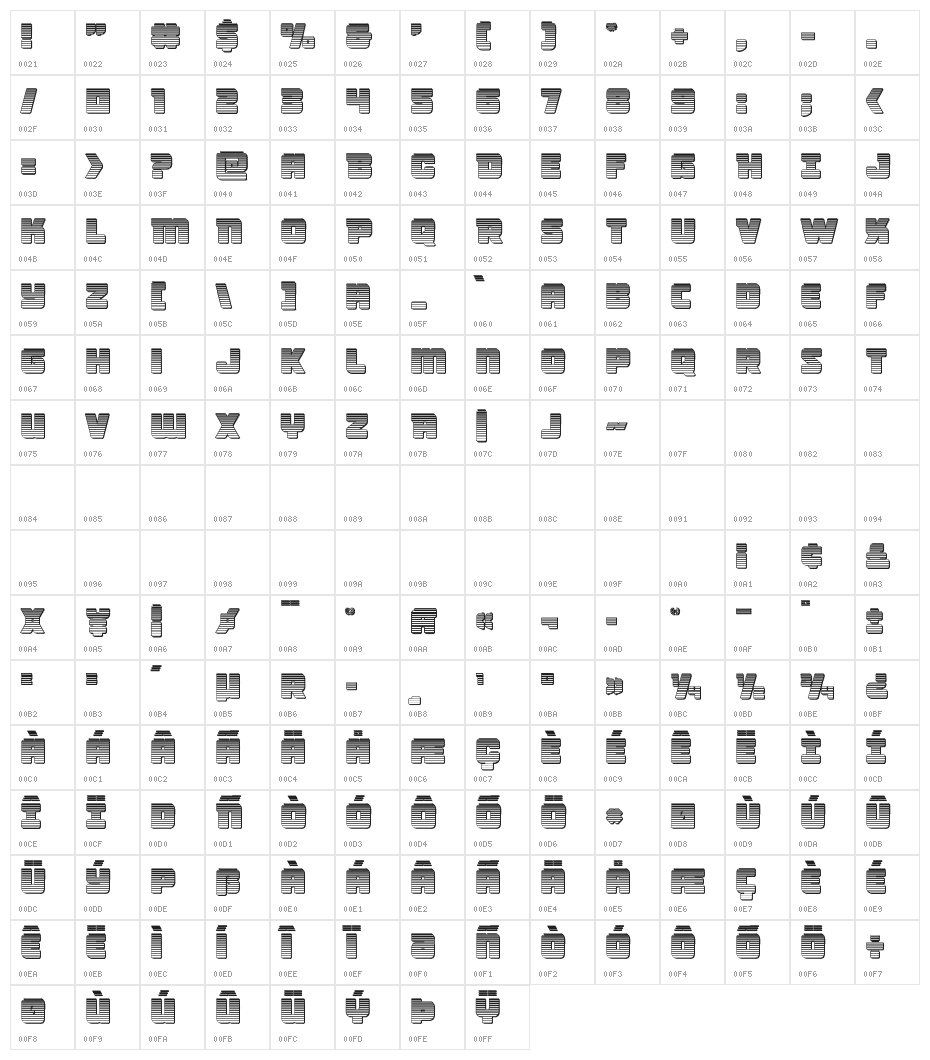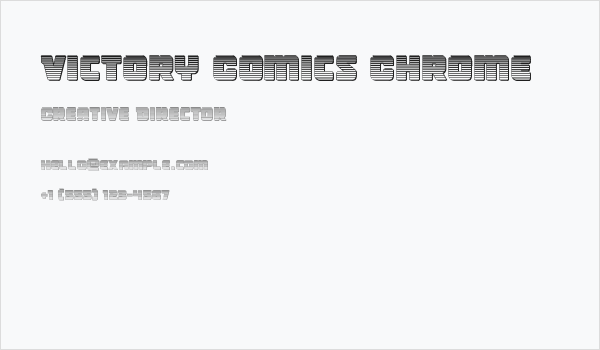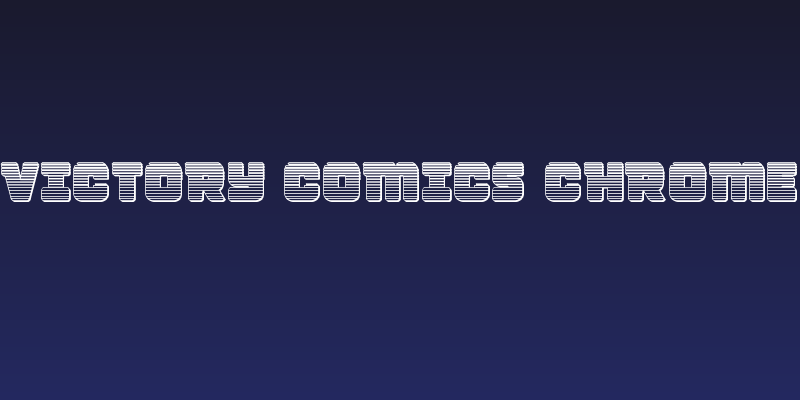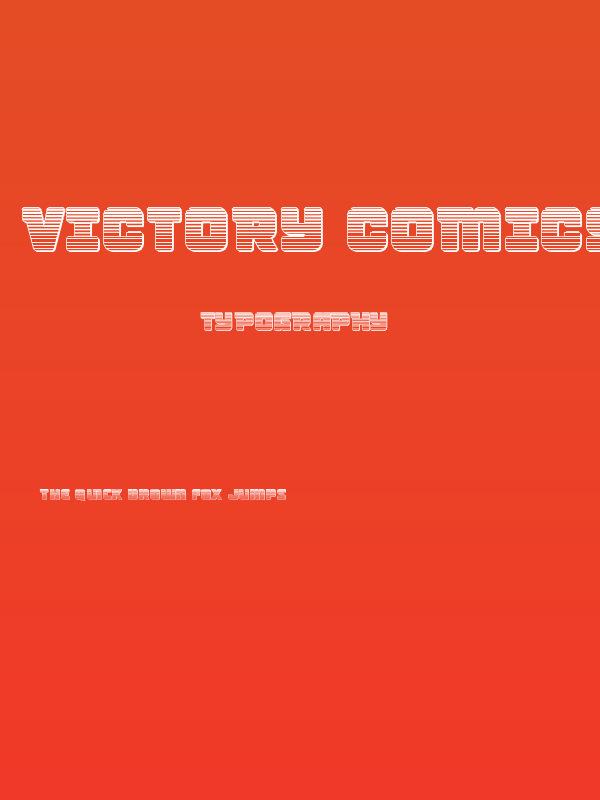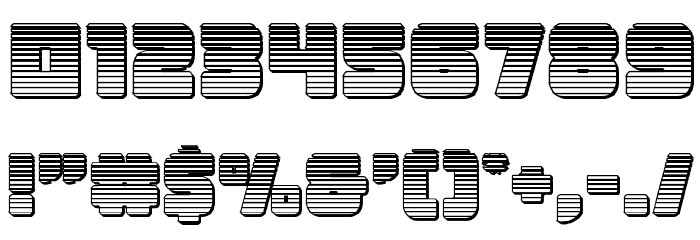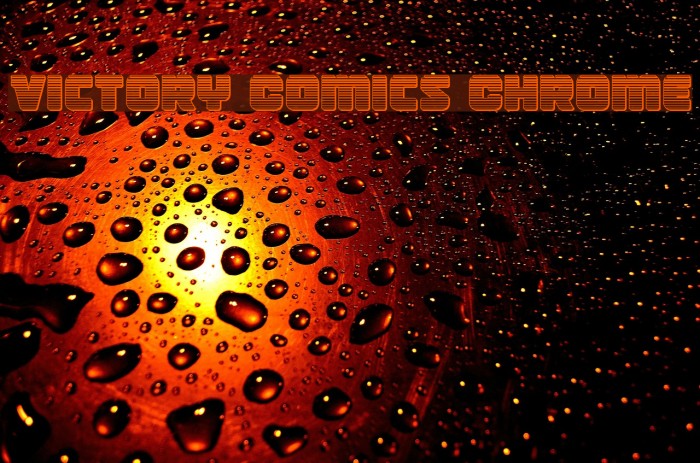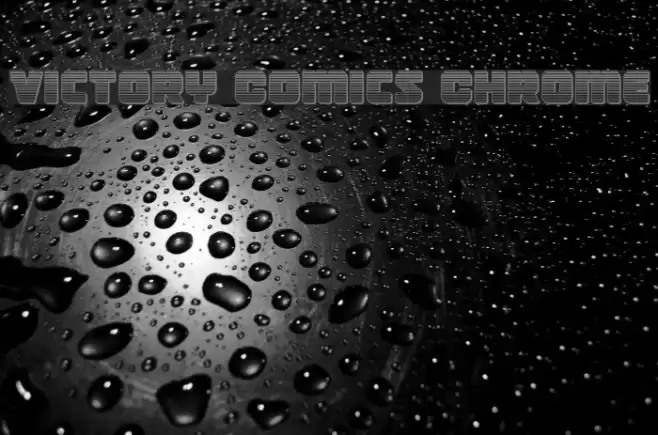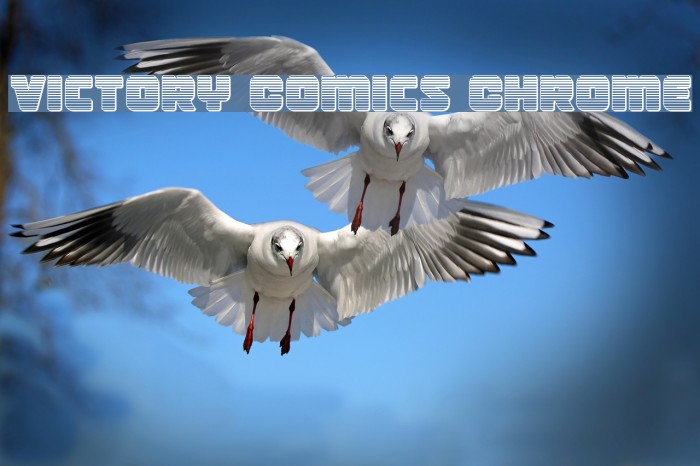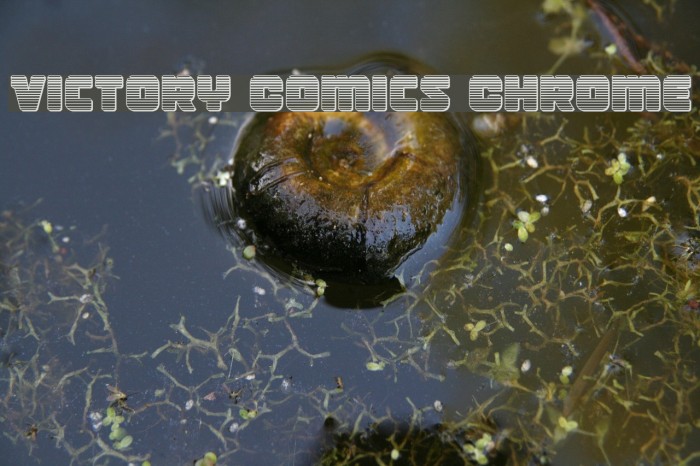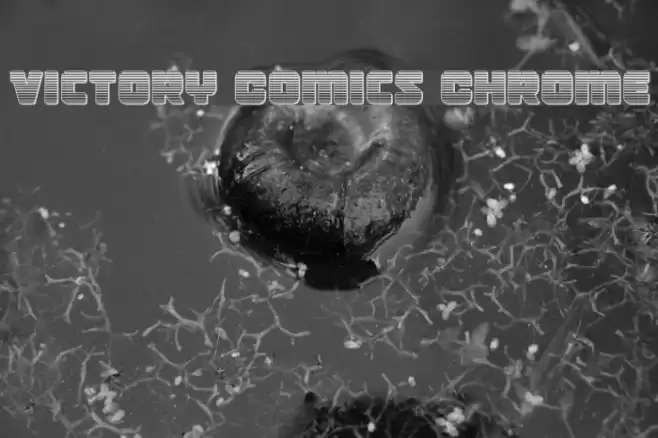
Victory Comics Chrome Font
Victory Comics Chrome Description
This font features a bold, layered design with a distinct striped pattern that gives it a three-dimensional, chrome-like appearance. The uppercase and lowercase letters maintain a consistent width, creating a uniform look across the alphabet. The numbers and special characters are designed with the same attention to detail, ensuring a cohesive style throughout. The font's unique aesthetic makes it stand out, with its bold lines and intricate detailing. It is particularly suited for projects that require a strong visual impact, such as comic book titles, posters, or any design that aims to capture attention with a retro-futuristic flair.
| Overall Style | Retro-Futuristic |
| Proposed Projects | Ideal for comic book titles, posters, and designs needing a retro-futuristic flair. |